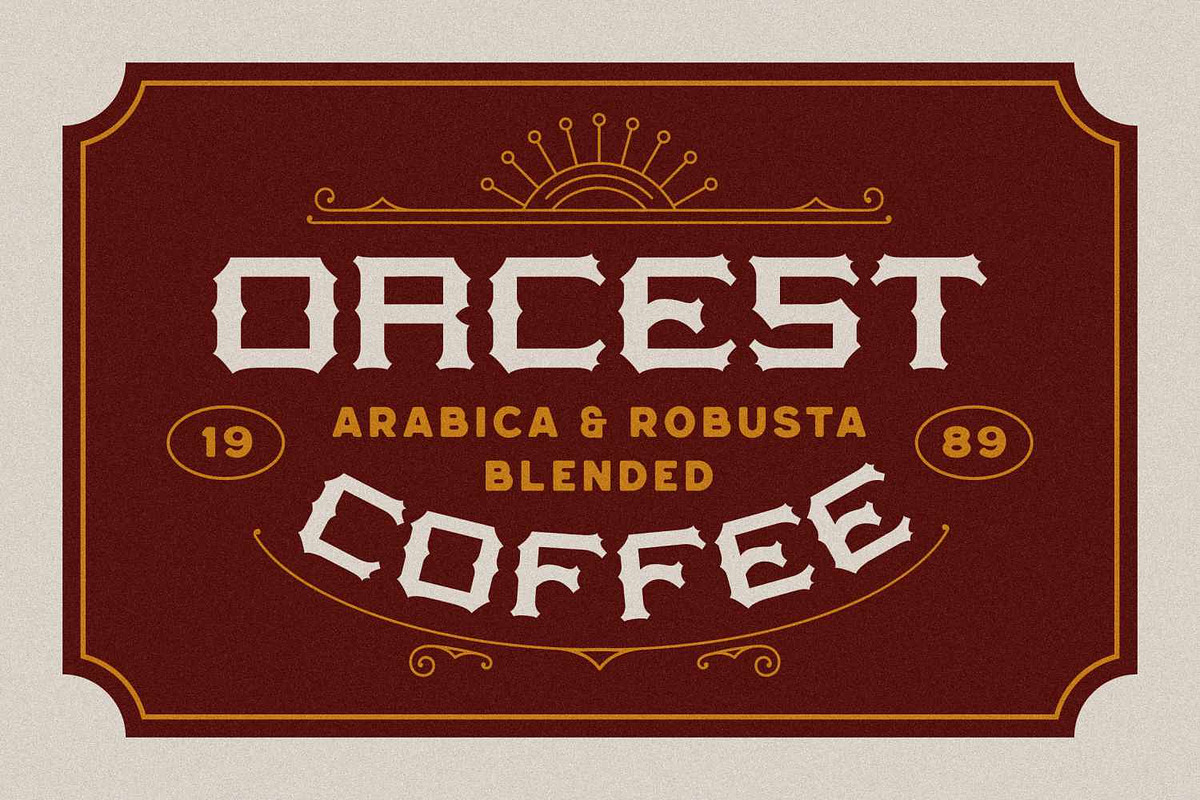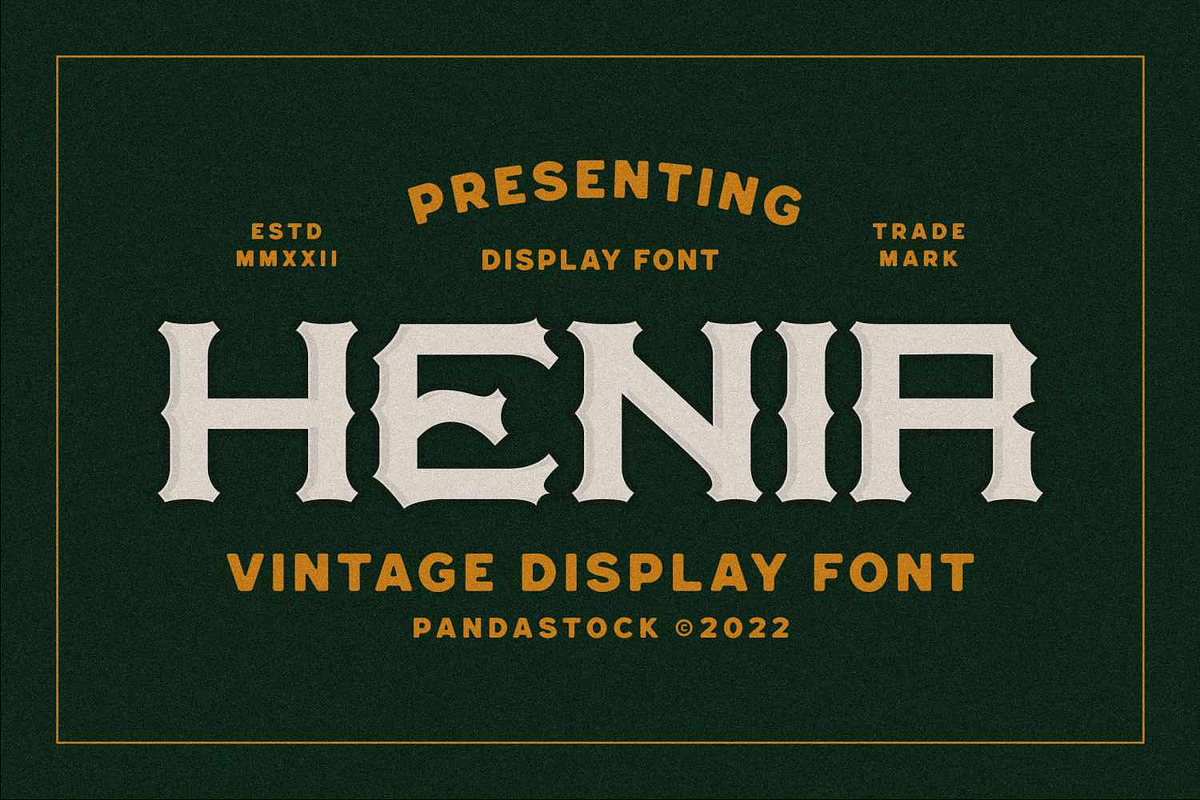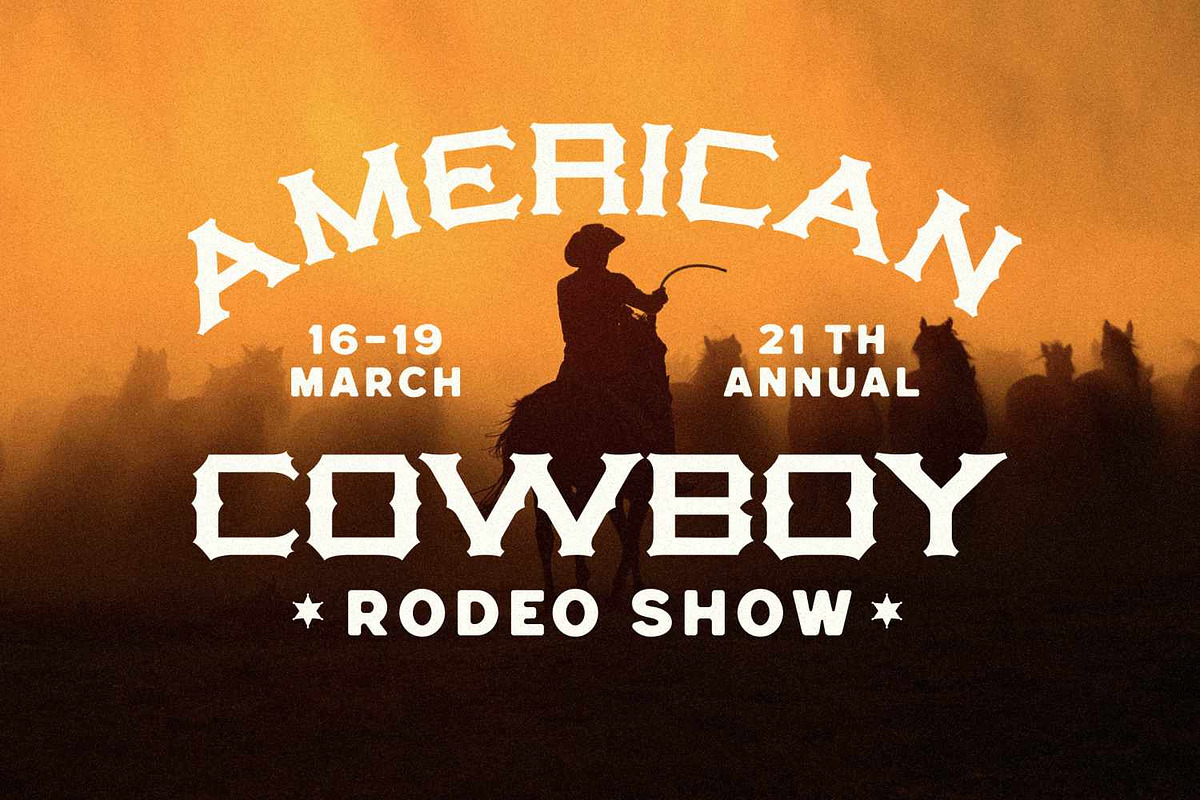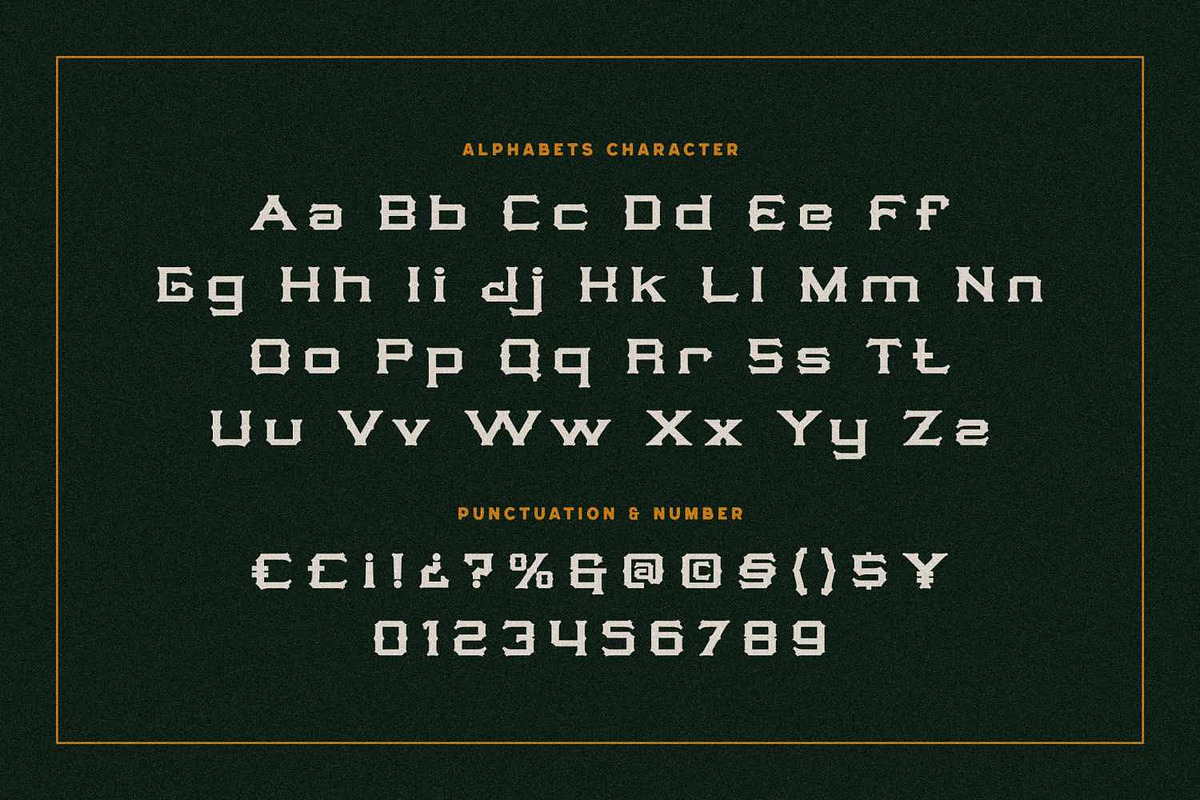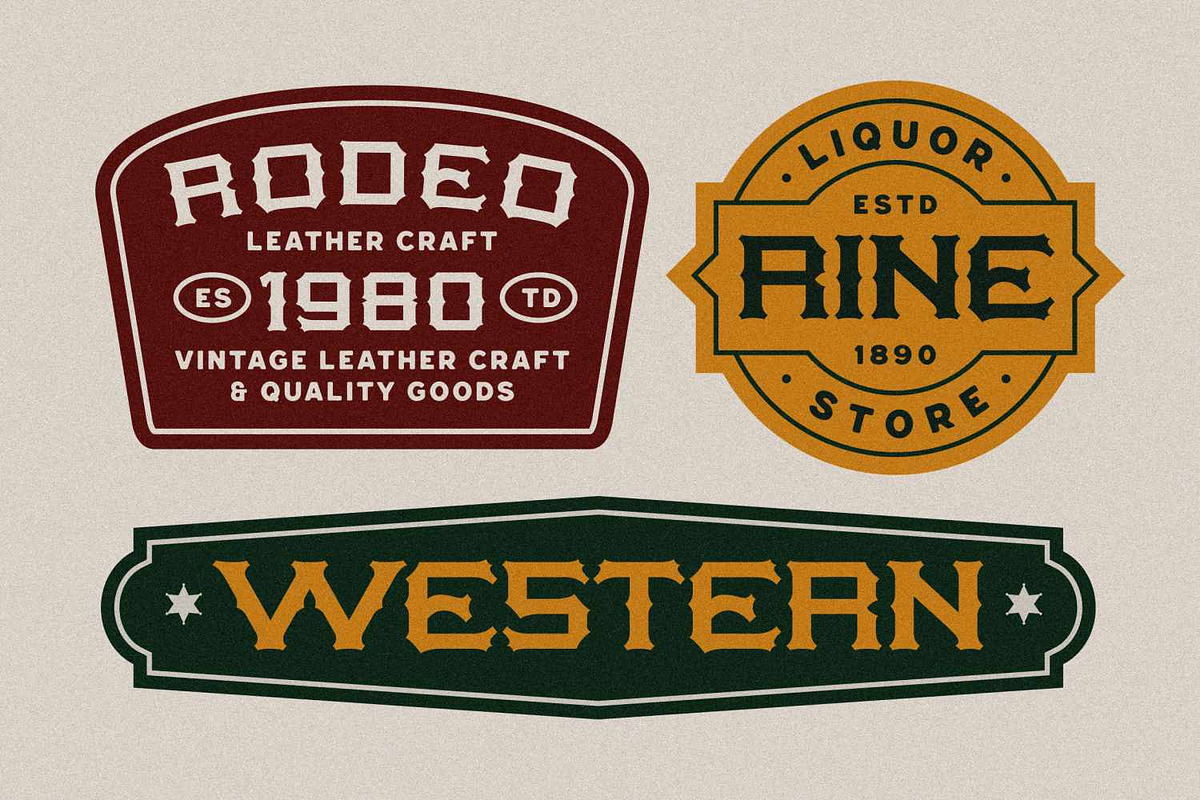
Henir - Vintage Western Font
Henir is a vintage western font brings the rugged charm of the american west to your designs. Its chiseled letterforms and sharp, slab like serifs echo the grit of old rodeo posters, cattle ranch branding irons, and frontier saloon signage. The typeface blends strong geometric structure with slight irregularities, giving it an authentic hand crafted feel. Perfect for headlines, packaging, coffee labels, apparel prints, event posters, and anything that needs a dash of rustic swagger.
Uppercase and Lowecase Characters.
Numerals and Punctuations.
Alternates and Ligatures.